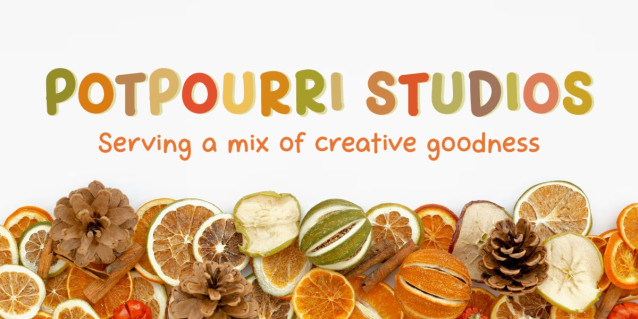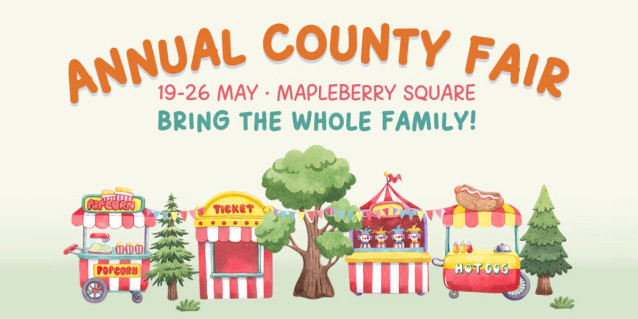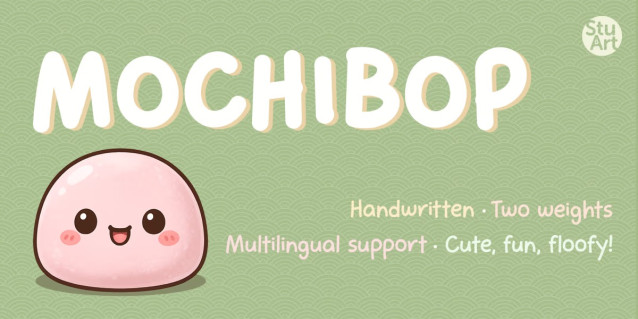
Mochibop Display Font
Mochibop Display Font is a rounded, bouncy handwritten font that brings cozy joy and bubbly personality to everything from digital stickers to children’s books. With chunky, marshmallow-like letterforms and a smooth rhythm that flows naturally, it’s like your handwriting got a hug from a mochi.